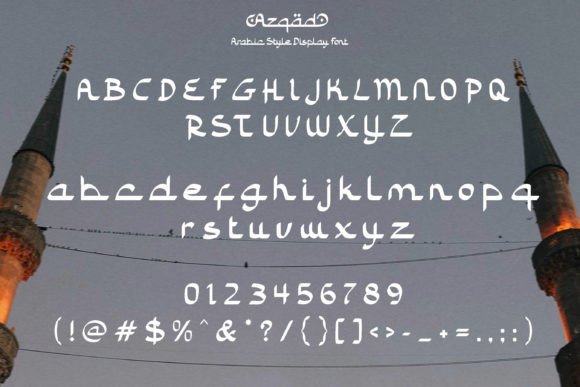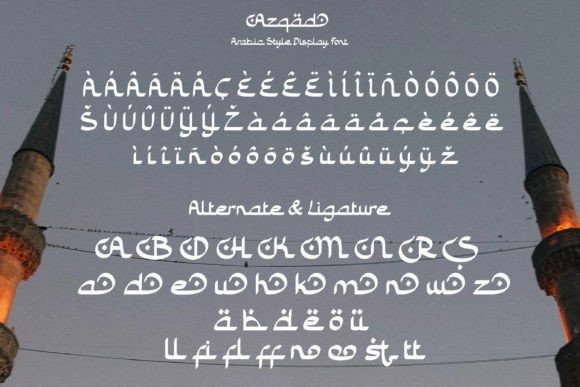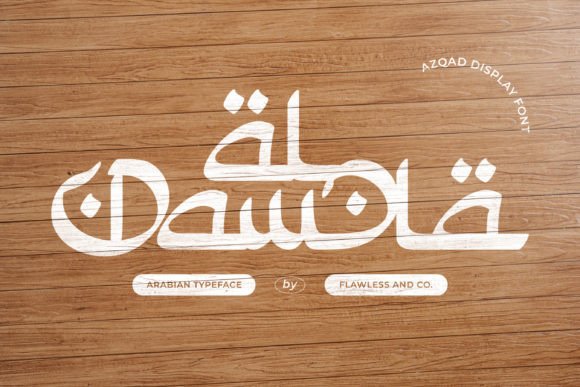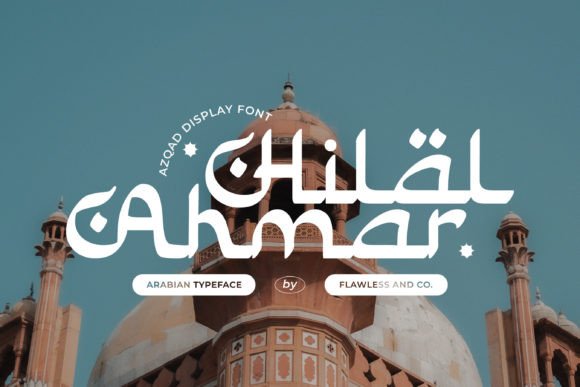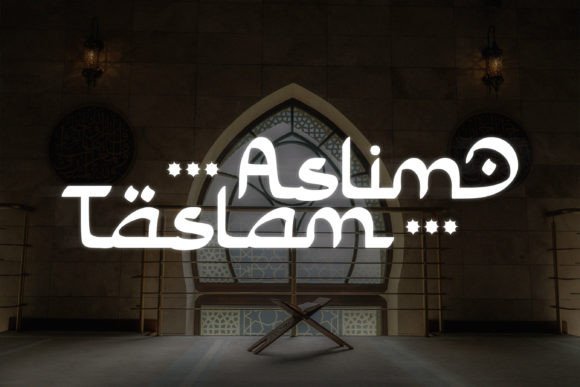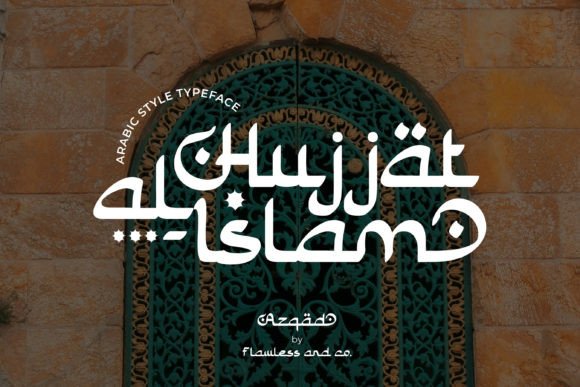
Introducing Azqad Font: A Masterful Blend of Traditional Arabic Elegance and Modern Sophistication
In the realm of typography, few fonts manage to capture the essence of cultural heritage while also embracing modern design sensibilities. Azqad Font is one such remarkable creation that seamlessly blends traditional Arabic calligraphy with contemporary elegance, making it an ideal choice for designers and crafters seeking to infuse their projects with a touch of sophistication and cultural richness.
The Essence of Azqad Font
Azqad Font is an elegant Arabic-style font that stands out for its graceful curves and intricate details. Each letterform is meticulously crafted to reflect the beauty and complexity of Arabic calligraphy, a art form that has been revered for centuries. The font’s design is not just about aesthetic appeal; it’s also about conveying the cultural and historical significance of Arabic script in a way that feels both authentic and modern.
One of the defining features of Azqad Font is its perfect balance between traditional elements and modern typographic sensibilities. The font boasts:
- Intricate Ligatures: Azqad includes a range of ligatures that are characteristic of Arabic calligraphy. These ligatures add a layer of authenticity and fluidity to the text, making it more readable and visually appealing.
- Elegant Curves: The font features graceful curves and flowing lines that are synonymous with Arabic script. These curves lend a sense of movement and elegance to the text.
- Modern Clarity: While rooted in tradition, Azqad has been designed with modern readability in mind. The font’s clarity makes it suitable for a wide range of applications, from digital media to print.
Versatility and Applications
Azqad Font’s versatility is one of its most compelling attributes. Its unique blend of traditional and modern elements makes it suitable for various design projects, including:
- Branding and Logo Design: Use Azqad to create distinctive and memorable logos that stand out with their cultural elegance.
- Packaging: Add a touch of sophistication to product packaging with a font that exudes luxury and heritage.
- Digital Media: Azqad is perfect for websites, mobile apps, and digital advertising, where its elegance can enhance user experience.
- Print Media: From magazines and brochures to posters and flyers, Azqad brings a level of refinement and cultural depth to print materials.
Why Choose Azqad Font?
For designers and crafters looking for a font that can add a unique cultural and aesthetic value to their projects, Azqad Font is an exceptional choice. Here are a few reasons why:
- Cultural Authenticity: Azqad offers a genuine representation of Arabic calligraphy, allowing designers to incorporate cultural elements into their work.
- Elegance and Sophistication: The font’s elegant design ensures that any project stands out with a touch of sophistication.
- Modern Relevance: Despite its traditional roots, Azqad remains highly legible and relevant in modern design contexts.
Azqad Font is a remarkable addition to the world of typography, offering a unique blend of traditional Arabic elegance and modern design principles. Its intricate details, elegant curves, and versatile applications make it an invaluable resource for designers and crafters aiming to create projects that resonate with cultural richness and sophistication. Whether you’re working on a branding project, digital media, or print materials, Azqad Font is sure to elevate your design to new heights of aesthetic excellence.